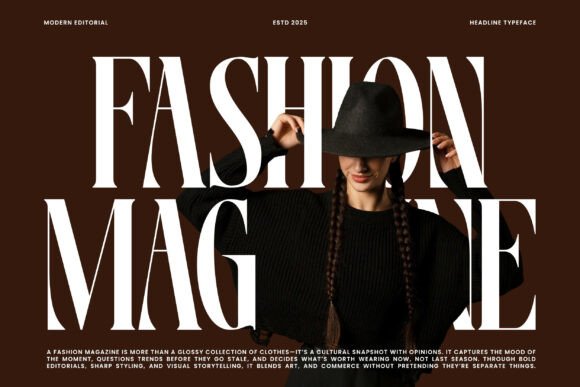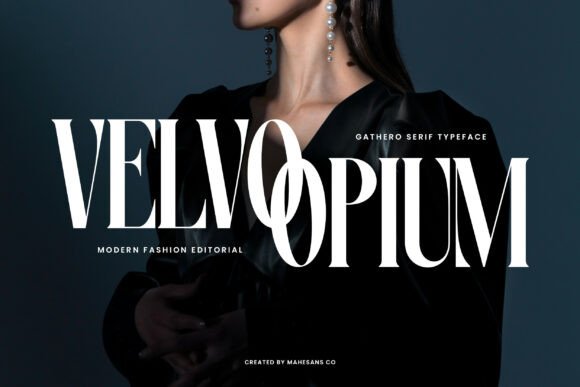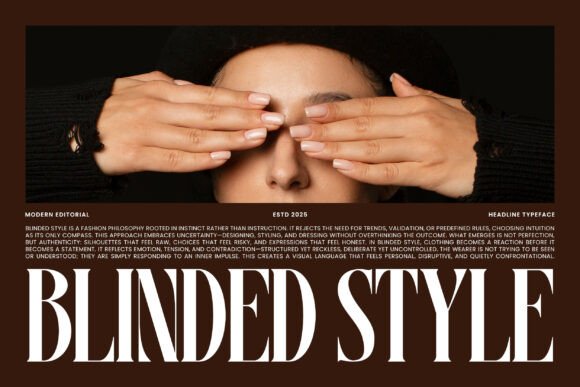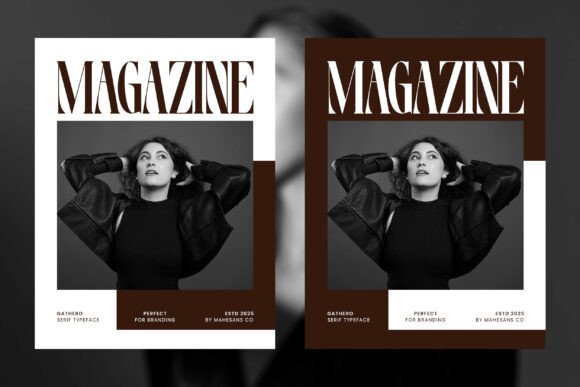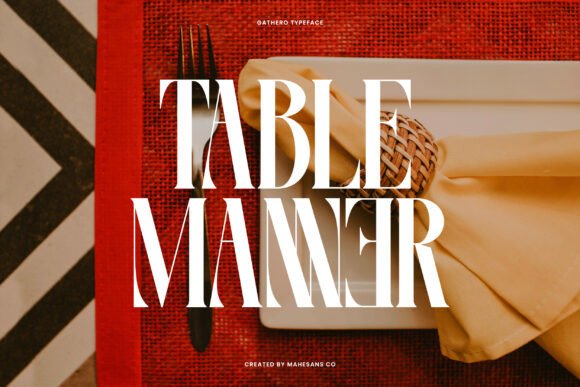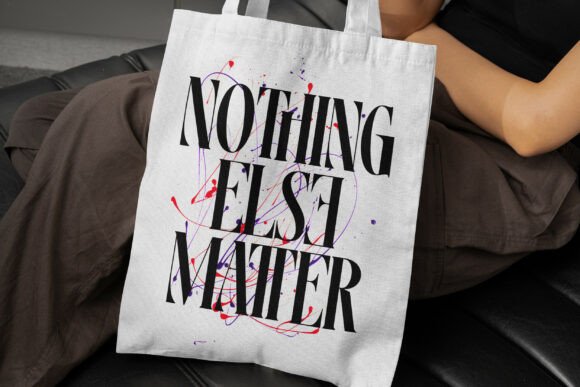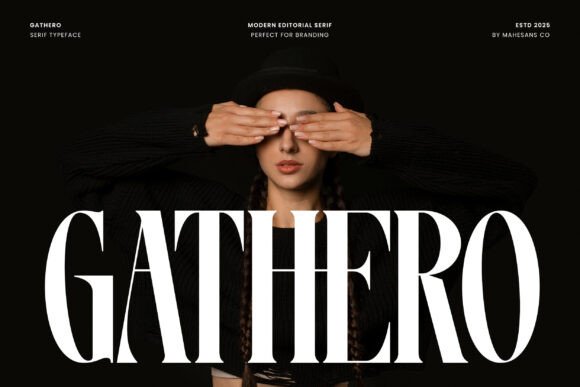
Introducing Gathero Font: Elevate Your Designs with Confidence and Elegance
In the world of typography, a font can make or break a design. For designers seeking to make a bold statement, Gathero Font is the perfect solution. This modern editorial serif typeface is crafted to exude confidence, refinement, and a touch of unapologetic boldness. Inspired by high-fashion magazines and contemporary branding, Gathero strikes a perfect balance between classic serif elegance and sharp, modern proportions.
The Inspiration Behind Gathero
Gathero’s design is rooted in the world of high-fashion and luxury branding. The font’s creator aimed to capture the essence of stylish, high-end publications and brands that demand attention. By combining traditional serif elements with modern flair, Gathero is the perfect choice for designers who want to elevate their work to new heights.
Key Features of Gathero Font
So, what sets Gathero apart from other typefaces? Here are some of its key features:
- Tall letterforms: Gathero’s tall letterforms give it a distinctive presence, making it perfect for headlines, titles, and luxury branding.
- Strong contrast: The font’s strong contrast between thick and thin strokes adds depth and visual interest to any design.
- Carefully shaped curves: Gathero’s curves are meticulously crafted to create a sense of elegance and sophistication.
- Full uppercase characters: The font includes full uppercase characters, making it ideal for titles, headings, and emphasis.
- Stylish ligatures: Gathero features stylish ligatures that add a touch of personality to your designs.
- Multilingual support: With support for multiple languages, Gathero is perfect for global projects.
Perfect for Editorial and Luxury Projects
Gathero Font shines in a variety of applications, including:
- Headlines and titles: Gathero’s bold, confident voice makes it perfect for headlines and titles that demand attention.
- Fashion layouts: The font’s high-fashion inspiration makes it a natural fit for fashion layouts, editorials, and campaigns.
- Luxury branding: Gathero’s elegant, sophisticated design makes it perfect for luxury brands seeking to establish a high-end identity.
- Posters and editorial projects: The font’s versatility makes it suitable for a wide range of editorial projects, from posters to magazine spreads.
In conclusion, Gathero Font is a powerful tool for designers seeking to elevate their work with confidence, elegance, and a touch of boldness. With its modern editorial serif design, stylish features, and versatility, Gathero is perfect for a wide range of applications, from fashion layouts to luxury branding. Whether you’re a seasoned designer or a crafty enthusiast, Gathero Font is sure to make a statement.